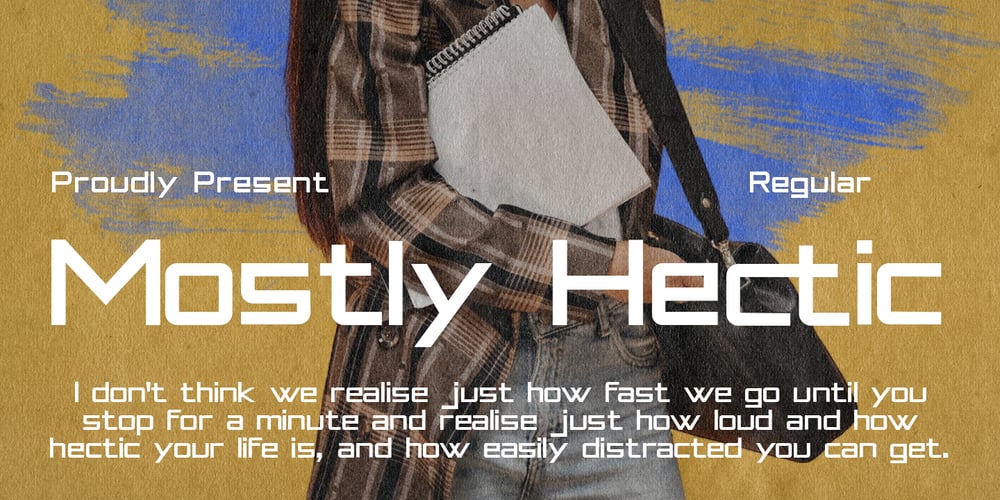
MC Mostly Hectic Font Family was designed by Gilang Maulana and published by Maulana Creative. MC Mostly Hectic contains 1 styles and family package options. Mostly Hectic is a display modern sans serif font. With bold tall and sharp stroke, fun character with a bit of ligatures. To give you an extra creative work. Mostly Hectic font support multilingual more than 100+ language. This font is good for logo design, Social media, Movie Titles, Books Titles, a short text even a long text letter and good for your secondary text font with sans or serif. Make a stunning work with Mostly Hectic font.Cheers, Maulana Creative